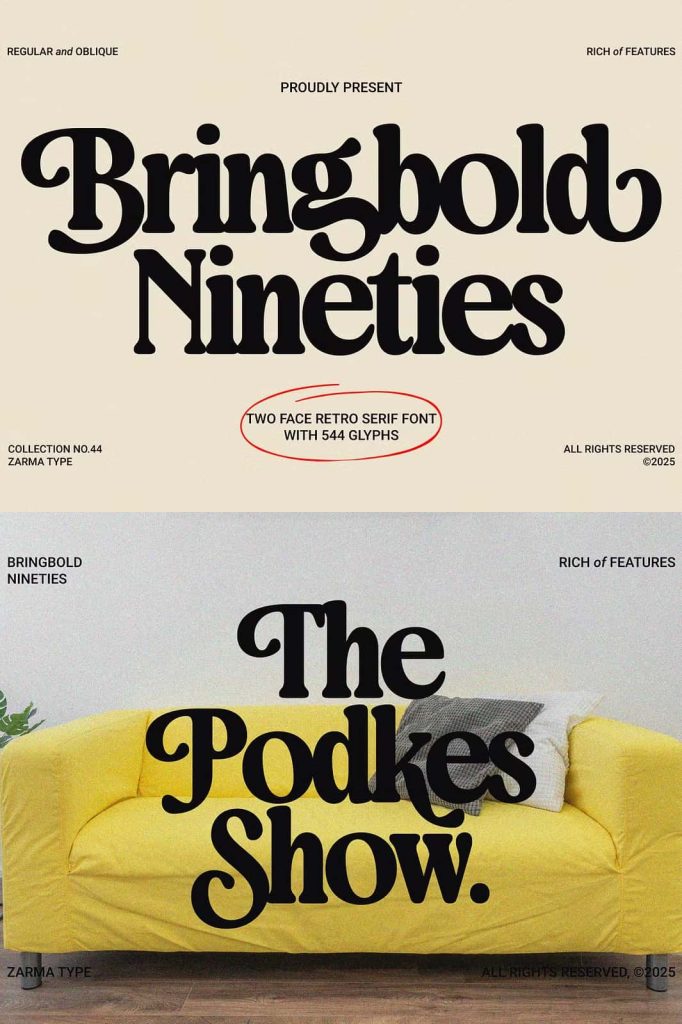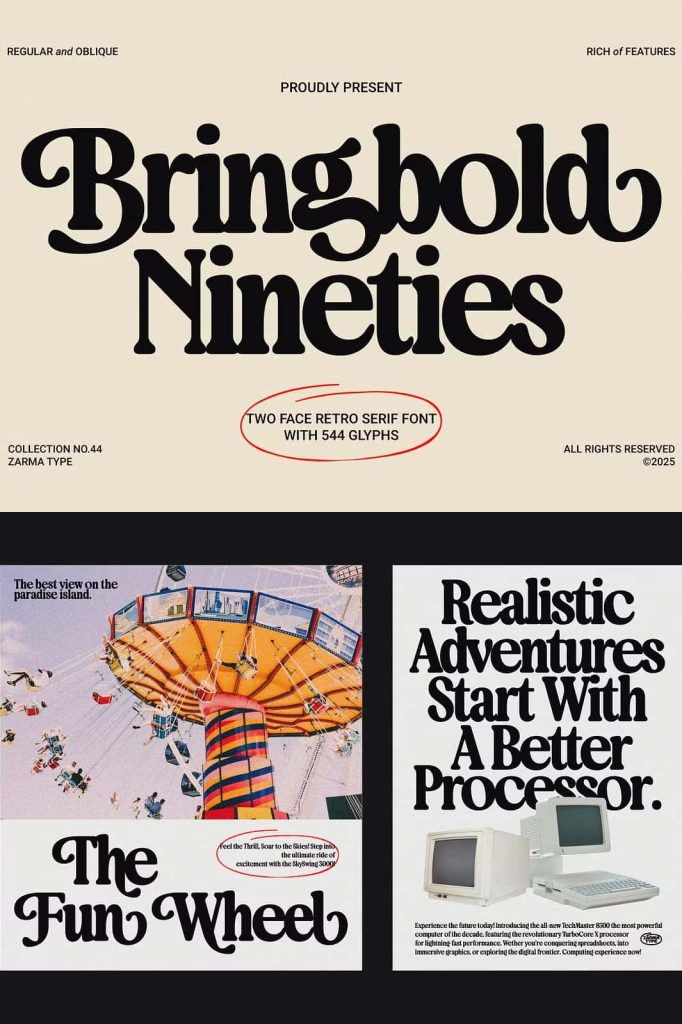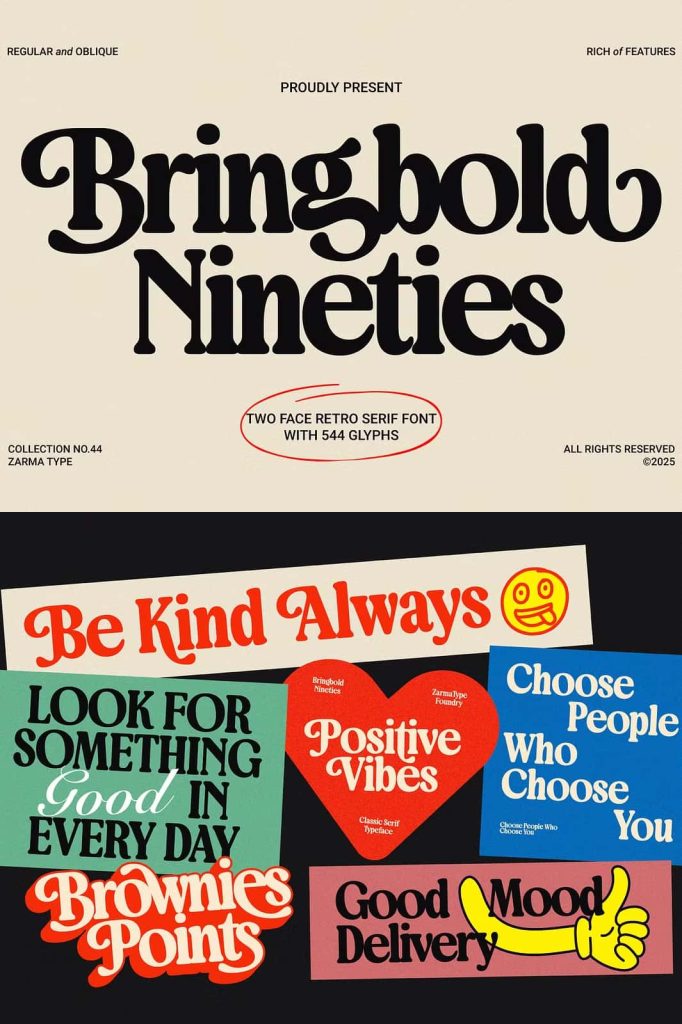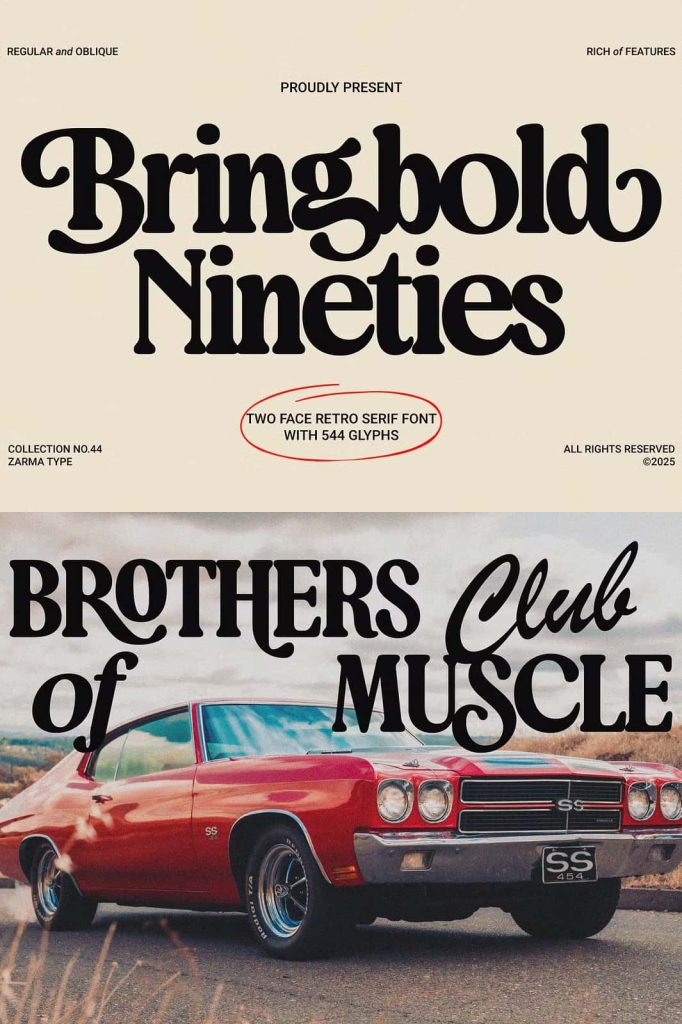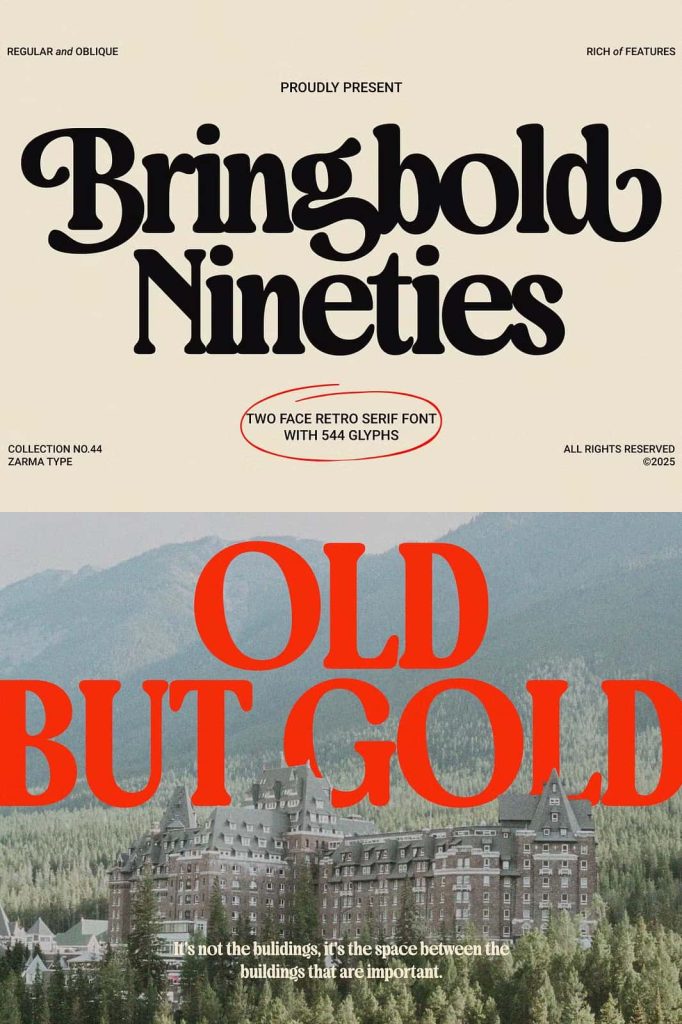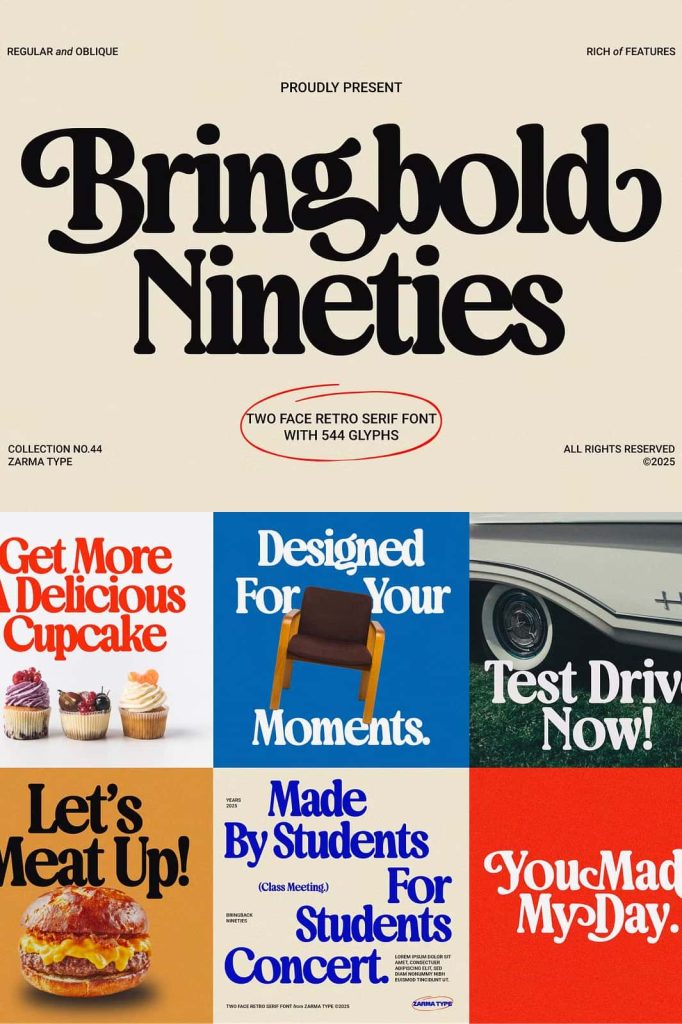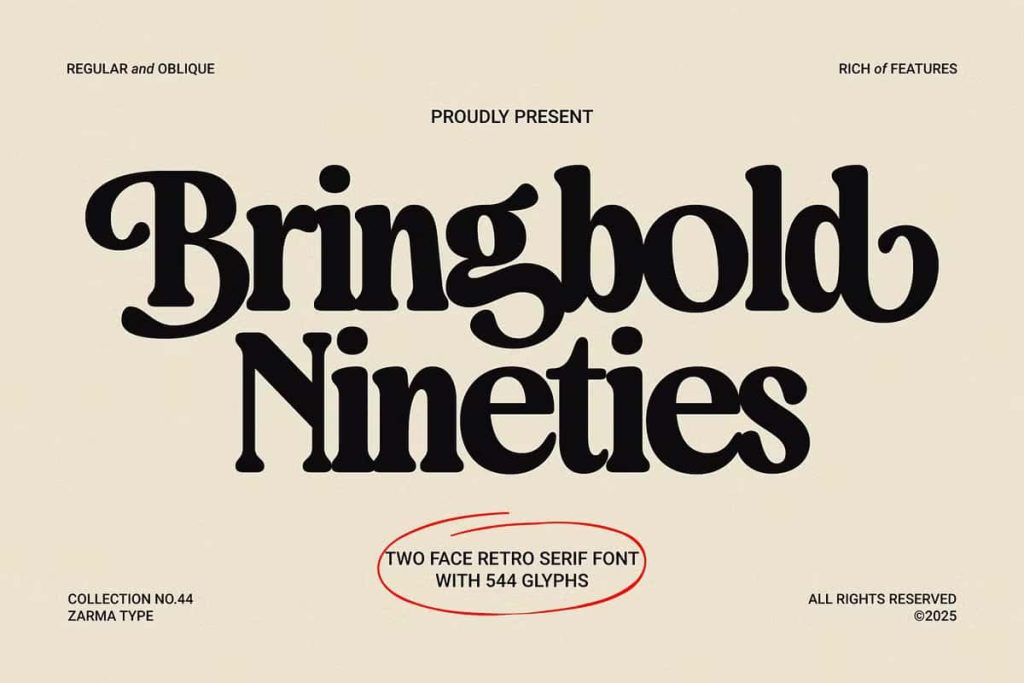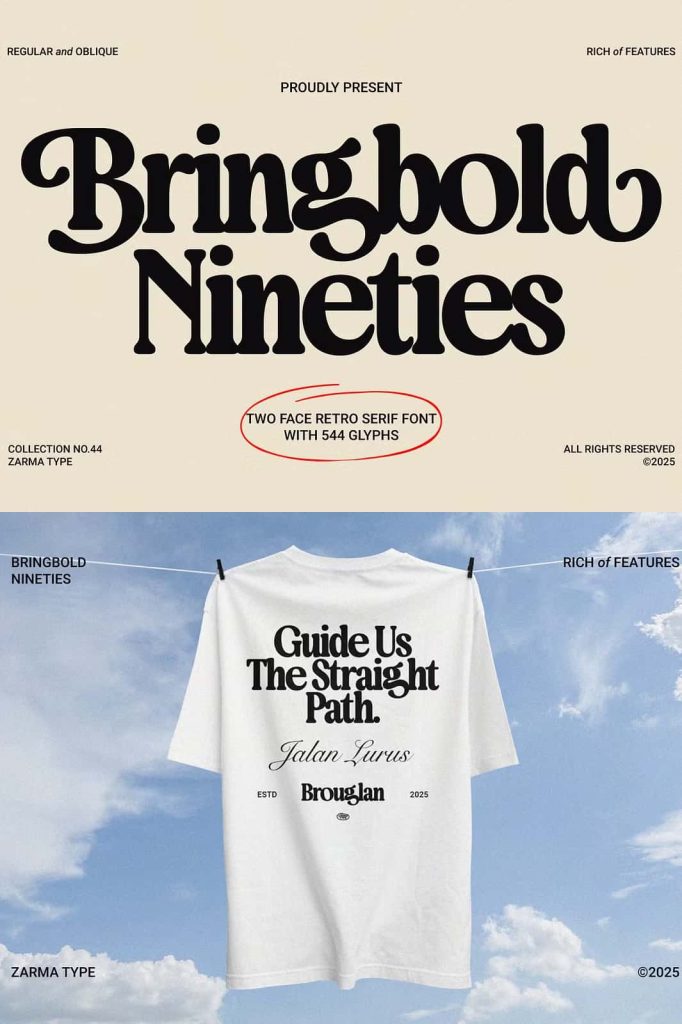
Bringbold Nineties Serif Font: Retro 90s Spirit with Modern Precision
Bringbold Nineties is a classic serif font that captures the unmistakable energy of 1990s design while refining it for modern creative use. This typeface brings together bold, confident letterforms and crisp serif details to create a visual identity that feels nostalgic yet current. Rather than replicating the past, Bringbold Nineties reimagines retro typography with improved structure, balance, and readability.
Designed for creatives who appreciate vintage character but demand contemporary performance, Bringbold Nineties delivers a font that feels expressive, powerful, and adaptable. It channels the attitude of the 90s while maintaining the clarity required for today’s design standards.
Inspired by 90s Retro Design Culture
The 1990s were defined by bold experimentation, strong visual identities, and confident typography. Bringbold Nineties draws from that era’s distinctive aesthetic, echoing the fonts seen in magazines, advertising, and pop culture graphics. The typeface reflects a time when typography was loud, expressive, and unapologetically bold.
At the same time, Bringbold Nineties introduces modern refinements that prevent it from feeling dated. Clean spacing, controlled contrast, and thoughtful proportions ensure that the font feels polished and relevant in contemporary design environments.
Vintage Nostalgia with a Modern Twist
Bringbold Nineties balances nostalgia and innovation. The serif details recall classic print typography, while the bold structure gives the font a confident presence. This blend allows designers to evoke retro charm without sacrificing usability.
The result is a typeface that feels familiar yet refreshed, making it ideal for projects that want to reference the past while speaking to a modern audience.
Bold Characteristics That Command Attention
Bringbold Nineties features strong, bold letterforms that immediately draw the eye. The weight of the font gives it authority and visual impact, making it particularly effective for display use. Headlines, titles, and branding elements benefit from the font’s confident structure.
Despite its boldness, the font remains highly readable. The crisp serifs and balanced letter shapes guide the reader’s eye smoothly across words, ensuring clarity even at larger sizes.
Crisp Serif Details and Clean Structure
The serif design in Bringbold Nineties adds definition and rhythm to the typography. Each serif is carefully crafted to enhance the overall shape of the letter rather than distract from it. These details contribute to the font’s strong visual identity while supporting legibility.
The clean structure allows the font to perform consistently across print and digital platforms, making it a dependable choice for diverse design projects.
Extensive OpenType Features for Creative Freedom
Bringbold Nineties includes a rich set of OpenType features that expand its creative potential. Designers can access a wide range of stylistic alternates and ligatures to customize the appearance of their typography. These features allow text to feel dynamic and handcrafted rather than repetitive.
The alternates provide multiple visual options for individual letters, enabling designers to fine-tune tone and style. Ligatures improve letter flow and spacing, enhancing the overall reading experience while adding visual interest.
- Numerous stylistic alternates
- Carefully crafted standard ligatures
- Discretionary ligatures for unique flair
- OpenType support for professional design software
Perfect for Branding, Editorial, and Display Design
Bringbold Nineties excels in projects that require strong personality and visual confidence. Its retro-inspired design makes it a natural fit for branding, editorial layouts, and promotional materials that aim to stand out.
The font works especially well in creative industries where storytelling and visual identity play a central role. Designers can use Bringbold Nineties to establish a bold voice that feels expressive and memorable.
A Serif Font That Celebrates Retro Expression
Bringbold Nineties invites designers to embrace the expressive spirit of 90s typography while benefiting from modern design precision. It encourages experimentation through its OpenType features and bold construction.
For creatives seeking a retro serif font that delivers both nostalgia and performance, Bringbold Nineties offers a compelling solution. It transforms vintage inspiration into a versatile, modern typeface that brings character, confidence, and creative freedom to every design.